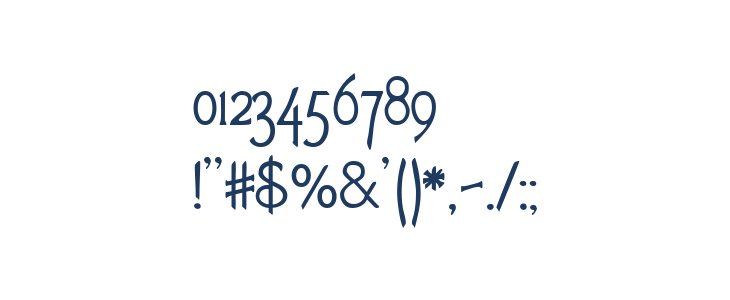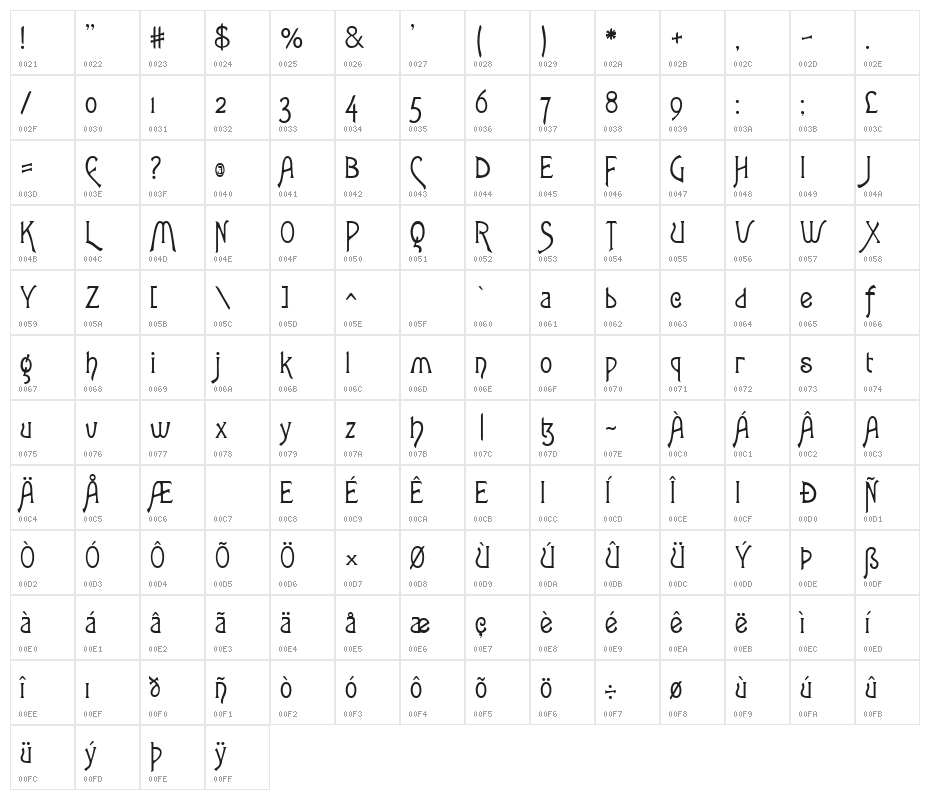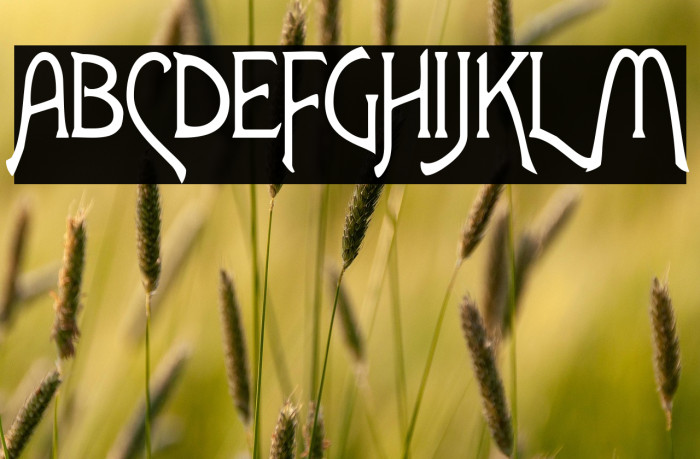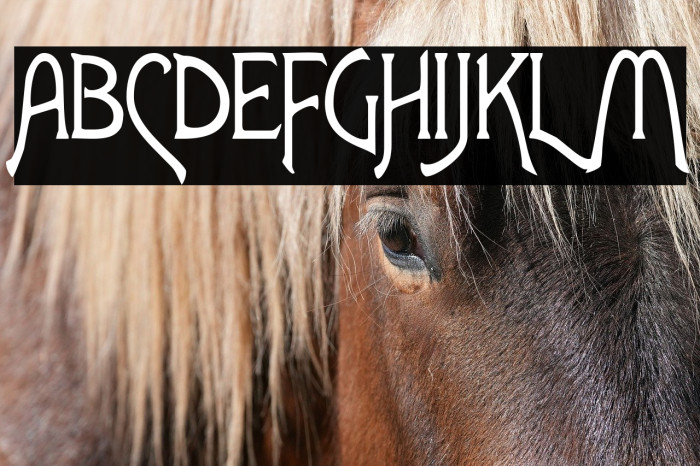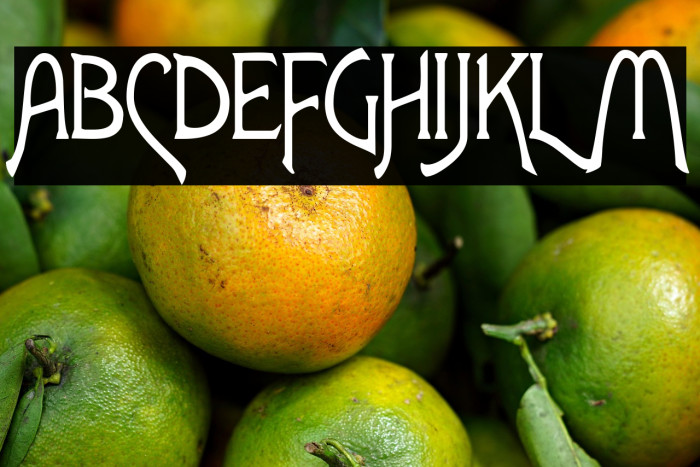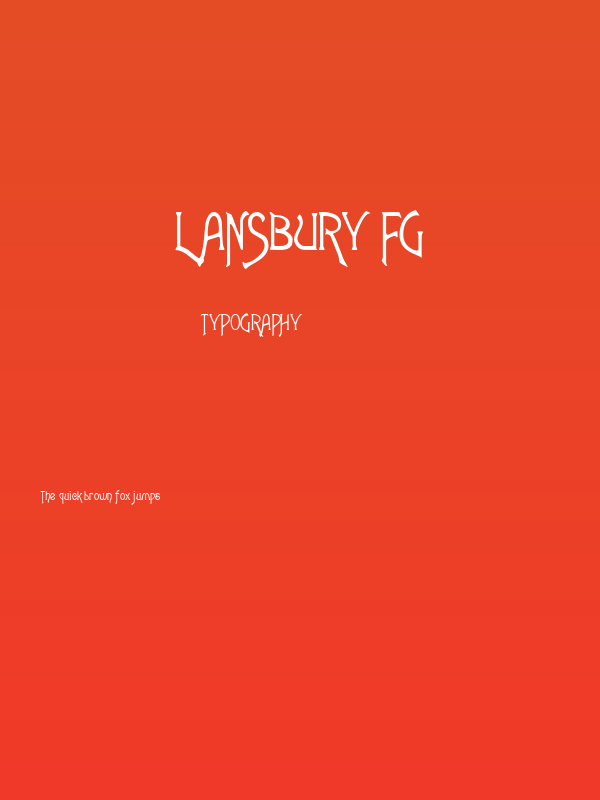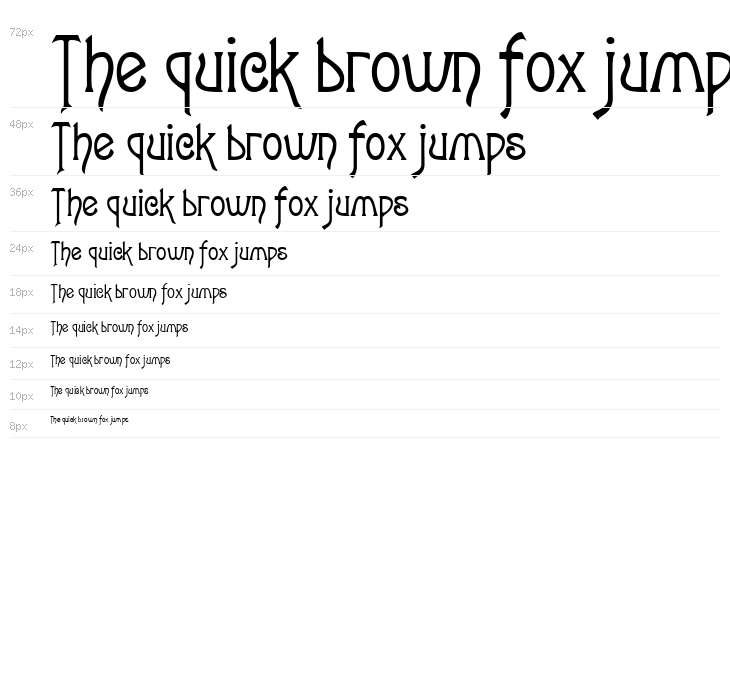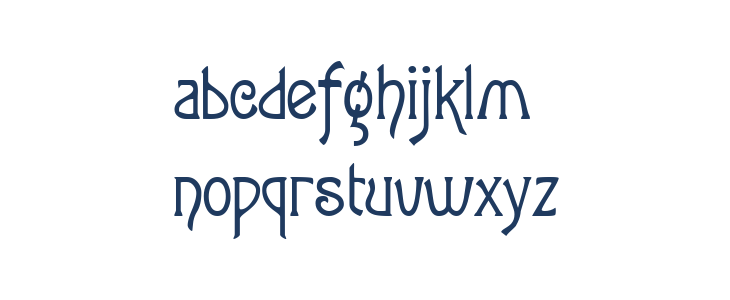
Lansbury FG Font
Lansbury FG Description
This font features a unique and artistic design with elongated and slightly curved strokes, giving it a whimsical and playful appearance. The uppercase letters are tall and narrow, with distinctive curves and angles that add character. The lowercase letters maintain a consistent style, with some characters featuring loops and swirls that enhance the font's decorative nature. The numerals are bold and maintain the same artistic flair, making them stand out. Special characters are creatively designed, complementing the overall style. This font is ideal for projects that require a touch of creativity and uniqueness.